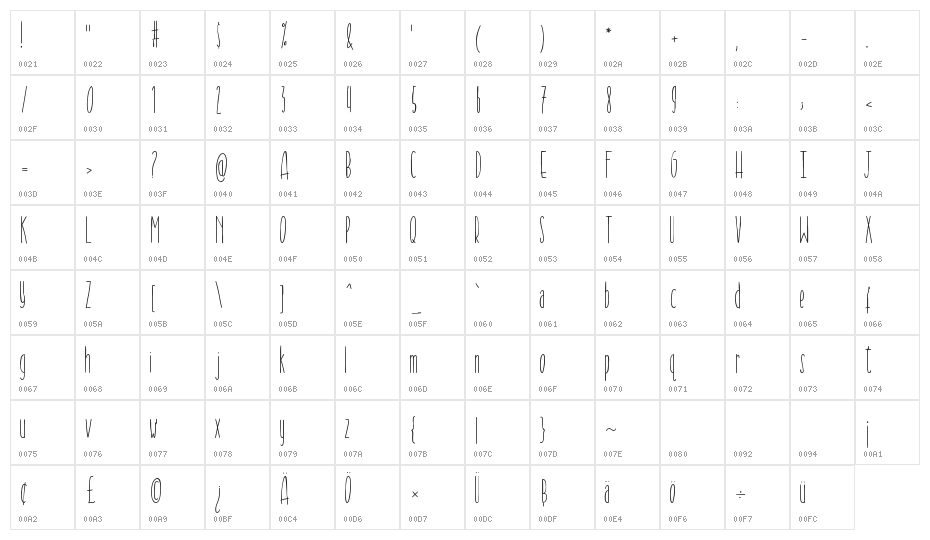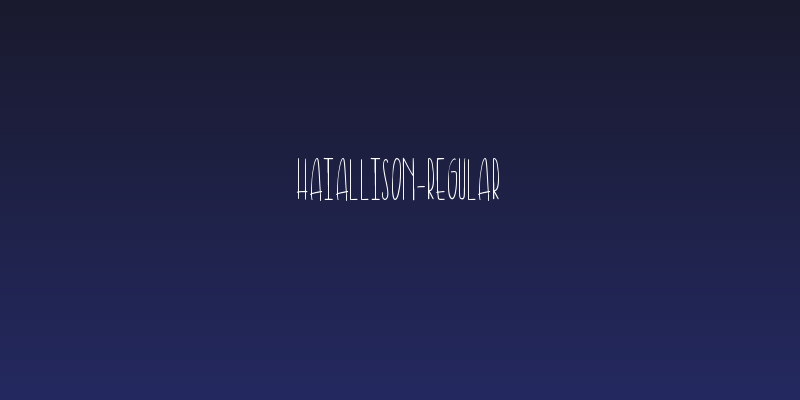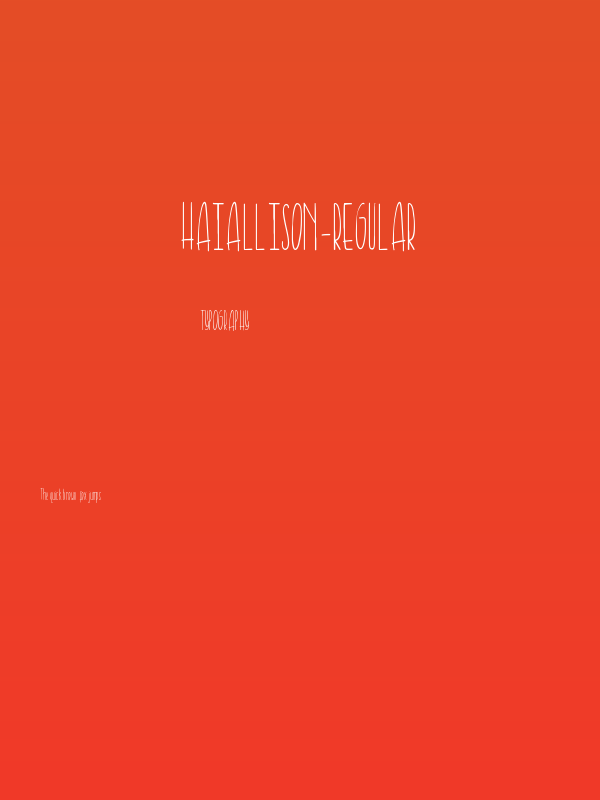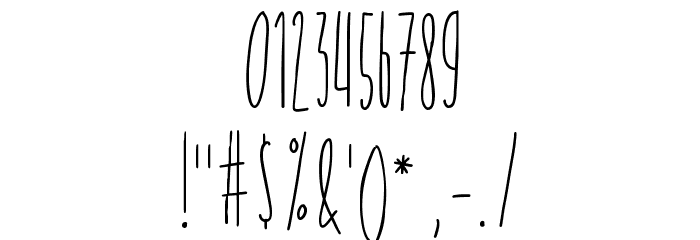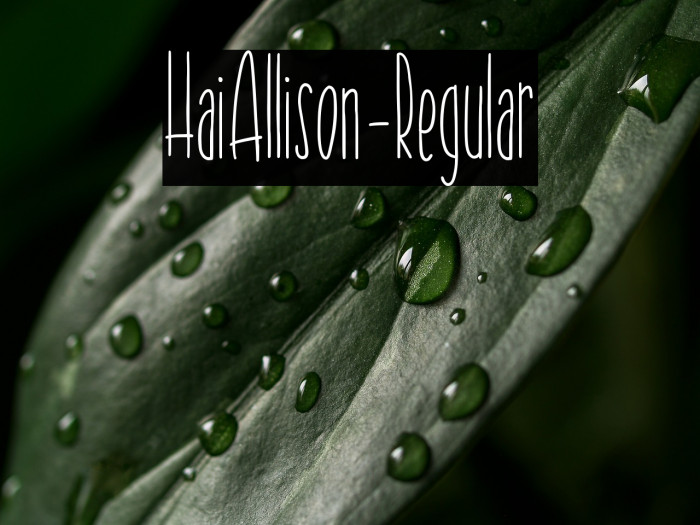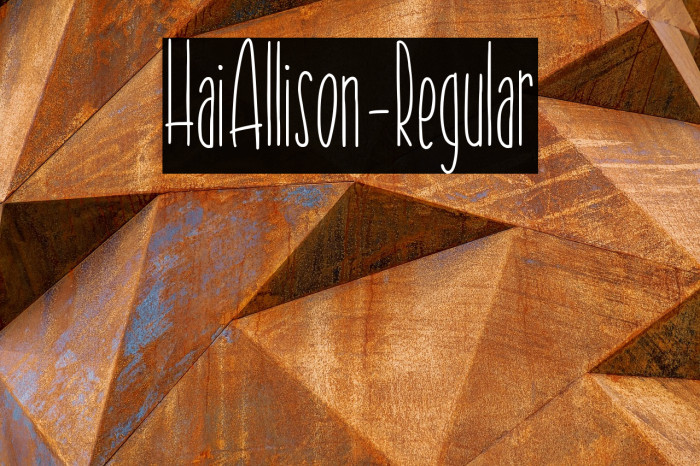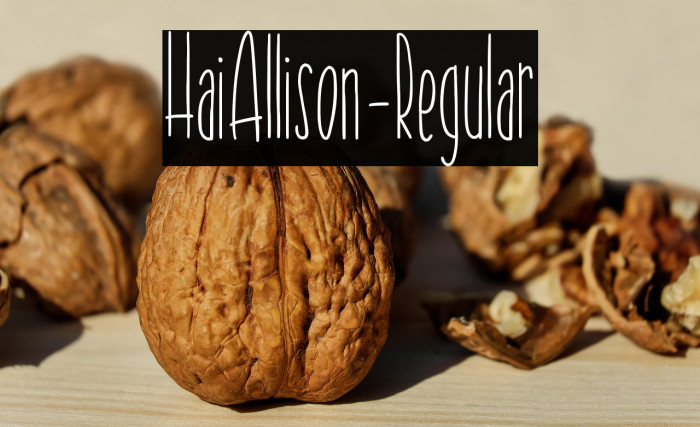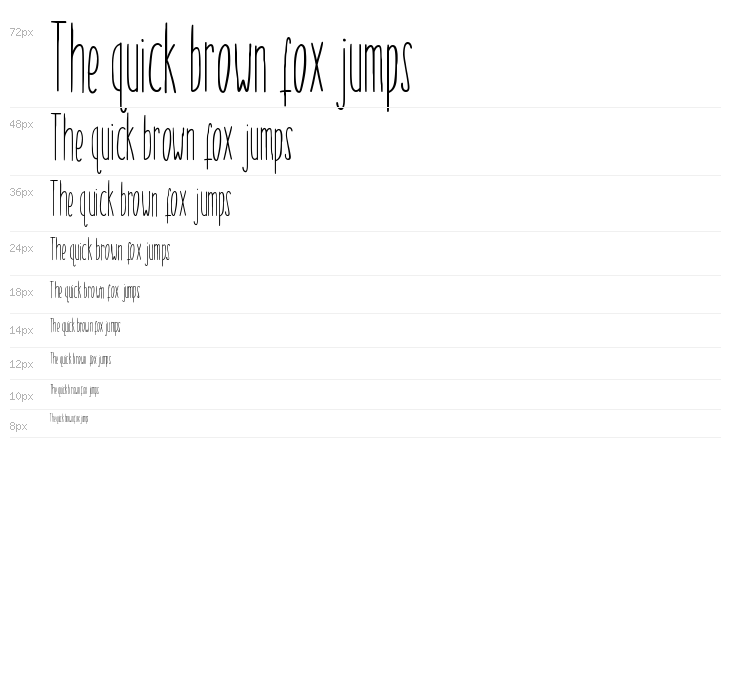
HaiAllison-Regular Font
HaiAllison-Regular Description
This font features a tall, narrow design with a handwritten aesthetic, characterized by its elongated letterforms and slightly irregular strokes. The uppercase and lowercase letters maintain a consistent style, with a playful yet elegant appearance. The numerals and special characters complement the alphabet with similar thin lines and a whimsical touch. The overall look is casual and approachable, making it suitable for projects that require a personal or informal tone.
| Proposed Projects | Ideal for greeting cards, invitations, personal branding, and creative projects that require a friendly and informal touch. |